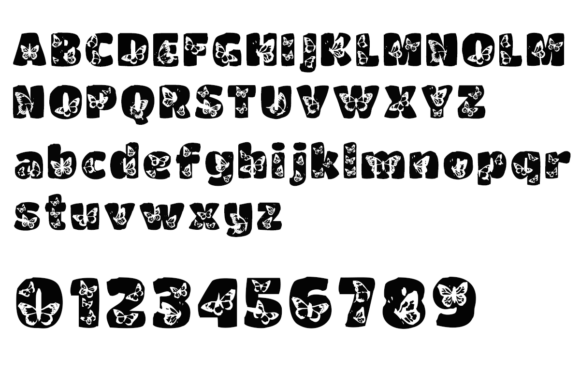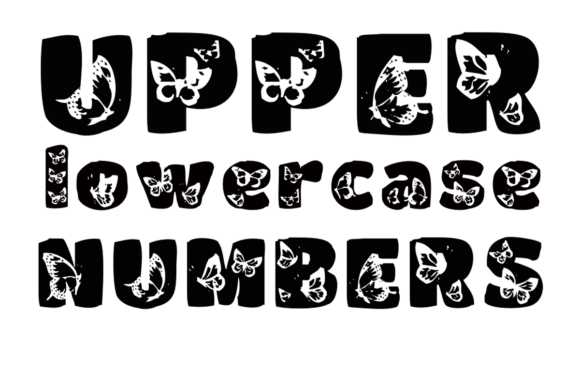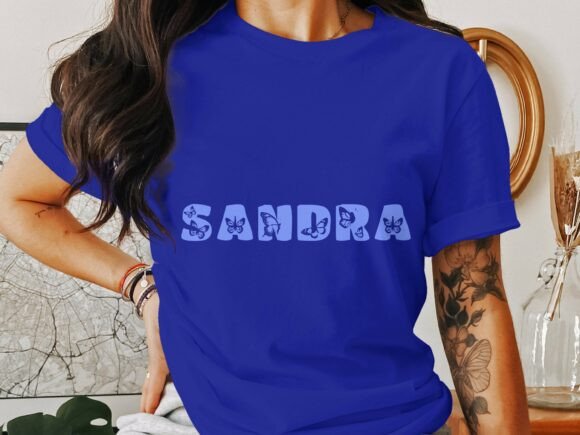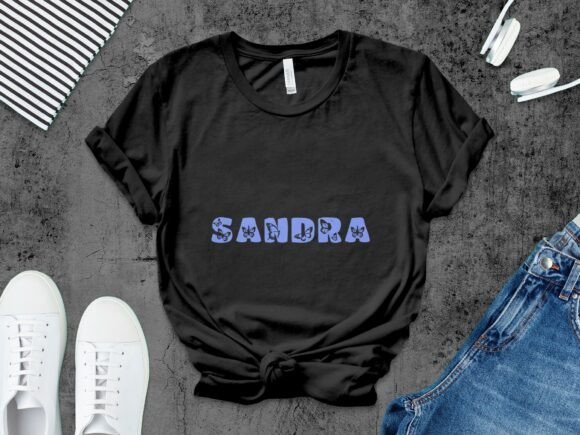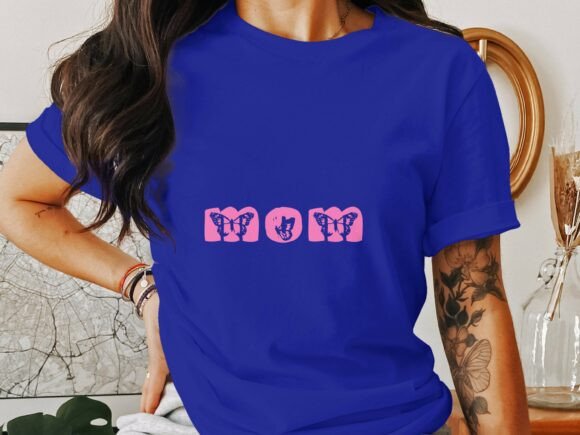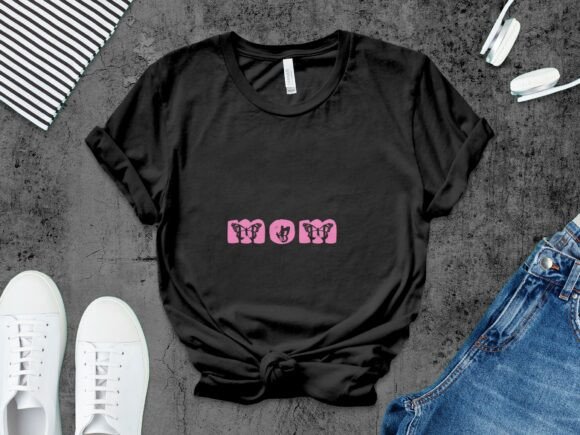
The Butterfly Effect: Elevate Your Designs with This Whimsical Font
I’ll never forget the time I was working on a client’s wedding invitation project, and I just couldn’t find the right font to match the elegance and playfulness of the design. The client wanted something that would capture the essence of their special day, but I was stuck. That’s when I stumbled upon the Butterfly Font, and it was love at first sight! 💕
This beautiful typeface has been a game-changer for my design projects, and I’m excited to share its charm with you. Inspired by the delicate beauty of butterflies, the Butterfly Font features intricate letterforms that flutter with charm and creativity. In this article, we’ll dive into the world of Butterfly Font, exploring its features, uses, and some helpful tips and tricks.
Perfect for Creative Projects
The Butterfly Font is versatile and can be used in a variety of creative projects, including:
- Invitations & Greeting Cards 🎉
- Logos & Branding 📈
- T-Shirts & Apparel 👕
- Wall Art & Posters 🎨
- Scrapbooking & Journaling 📚
- Digital Downloads & Printables 📊
- 💫 Unique and eye-catching letterforms that add a touch of elegance and whimsy to any design
- ✅ Highly versatile and can be used in various creative projects
- 🎨 Beautifully crafted with attention to detail, making it perfect for designs that require a personal touch
- 📚 Extensive character set, including OpenType features, glyphs, and stylistic alternates
While the Butterfly Font is a stunning typeface, there are a few things to keep in mind:
- 🤔 Some of the intricate details may not be suitable for very small font sizes
- ⚠️ May require a bit of experimentation to get the perfect combination of OpenType features and stylistic alternates
The Designer Inspiration
The Butterfly Font was inspired by the delicate beauty of butterflies and the art of nature. The designer, a lover of nature and art, wanted to create a typeface that would capture the essence of these beautiful creatures. With intricate details and elegant letterforms, the Butterfly Font is a true masterpiece.
Q: Is the Butterfly Font suitable for body text?
A: While the Butterfly Font is beautiful, it’s best suited for headlines, titles, and short paragraphs. For body text, a clearer font may be more suitable.